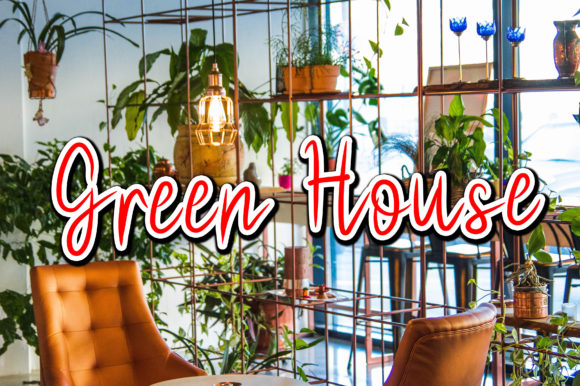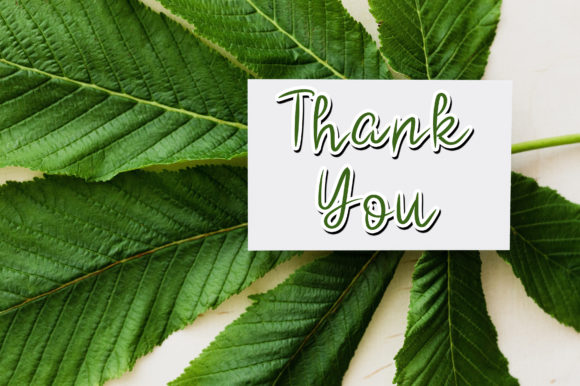
Garden Font: A Romantic and Sweet Calligraphy Typeface
Are you looking for a font that can add a touch of elegance and whimsy to your designs? Look no further than Garden Font, a beautiful calligraphy typeface that is perfect for a variety of creative projects. In this article, we’ll take a closer look at Garden Font, its features, and how you can use it to elevate your designs.
What is Garden Font?
Garden Font is a romantic and sweet calligraphy typeface that features characters that dance along the baseline. It has a casual, yet elegant touch that makes it perfect for designs that require a personal and whimsical feel. The font is designed to be versatile and can be used for a wide range of purposes, including logos, wedding invitations, headings, t-shirts, letterhead, signage, labels, news, posters, badges, and more.
Key Features of Garden Font
- Romantic and Sweet: Garden Font has a romantic and sweet feel that makes it perfect for designs that require a personal touch.
- Calligraphy Style: The font features a calligraphy style that gives it a unique and elegant look.
- Characters that Dance: The characters in Garden Font dance along the baseline, adding a playful and whimsical touch to your designs.
- Casual yet Elegant: The font has a casual yet elegant feel that makes it perfect for a wide range of designs.
- Versatile: Garden Font can be used for a variety of purposes, including logos, wedding invitations, headings, t-shirts, letterhead, signage, labels, news, posters, badges, and more.
How to Use Garden Font
Garden Font is a versatile font that can be used for a wide range of creative projects. Here are some ideas to get you started:
- Wedding Invitations: Garden Font is perfect for wedding invitations, adding a romantic and whimsical touch to your designs.
- Logos: The font can be used to create beautiful and elegant logos for your business or brand.
- Headings: Garden Font can be used to create stunning headings for your website, blog, or social media channels.
- T-Shirts: The font can be used to create beautiful and unique designs for t-shirts, tote bags, and other apparel.
- Signage: Garden Font can be used to create eye-catching signage for your business or event.
Why Choose Garden Font?
There are many fonts available that offer a similar style to Garden Font, but here are some reasons why you should choose Garden Font:
- Unique Style: Garden Font has a unique and elegant style that sets it apart from other fonts.
- High-Quality: The font is designed to be high-quality, with clean and crisp lines that look great in any design.
Tips for Using Garden Font
Here are some tips for using Garden Font in your designs:
- Use it Sparingly: Garden Font is a beautiful font, but it can be overwhelming if used too much. Use it sparingly to add a touch of elegance to your designs.
- Pair it with Other Fonts: Garden Font can be paired with other fonts to create a unique and interesting look.
- Experiment with Colors: The font looks great in a variety of colors, so experiment with different colors to find the one that works best for your design.
- Pay Attention to Size: Make sure to pay attention to the size of the font, as it can affect the overall look of your design.
Garden Font is a beautiful and elegant calligraphy typeface that is perfect for a wide range of creative projects. Its romantic and sweet feel, combined with its casual yet elegant touch, makes it a great choice for designers and crafters. With its versatility and ease of use, Garden Font is a great addition to any designer’s toolkit.